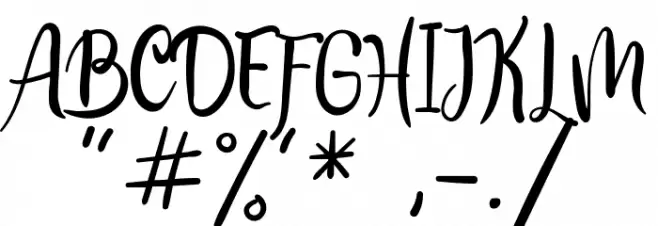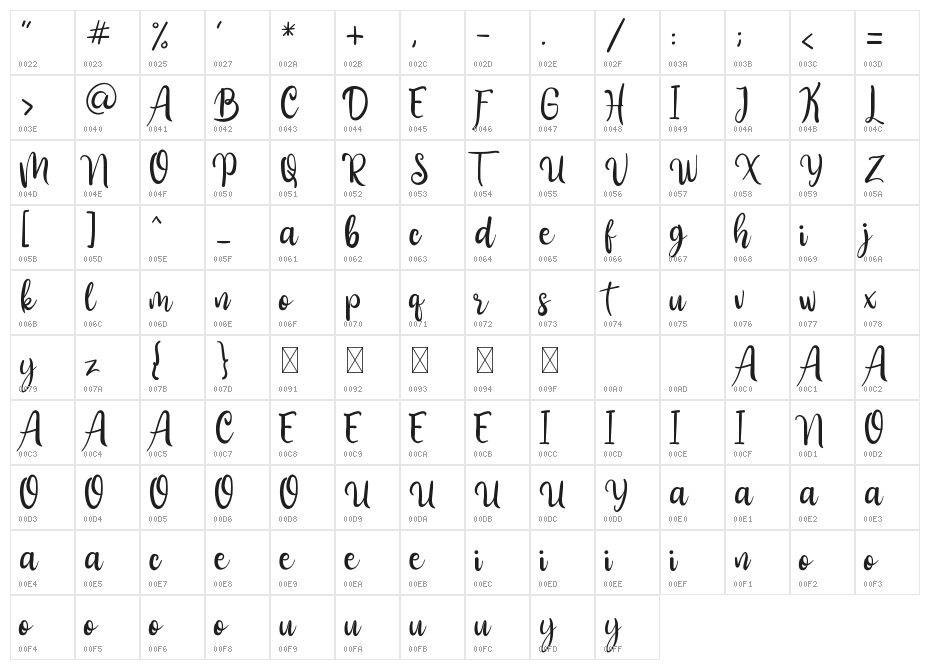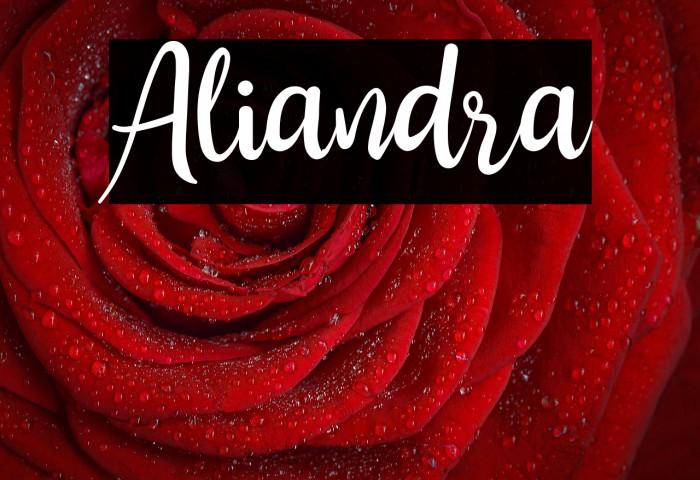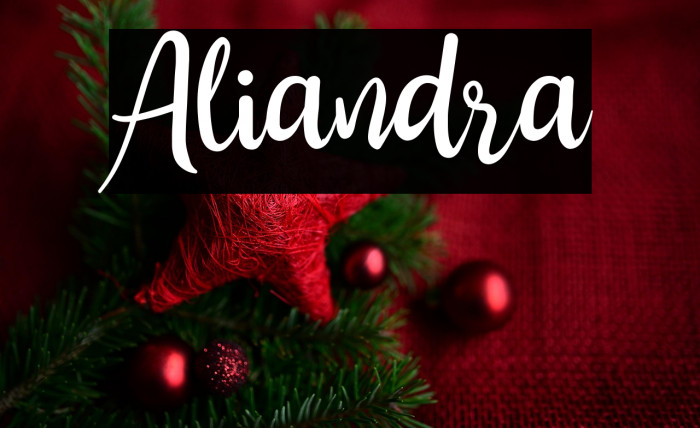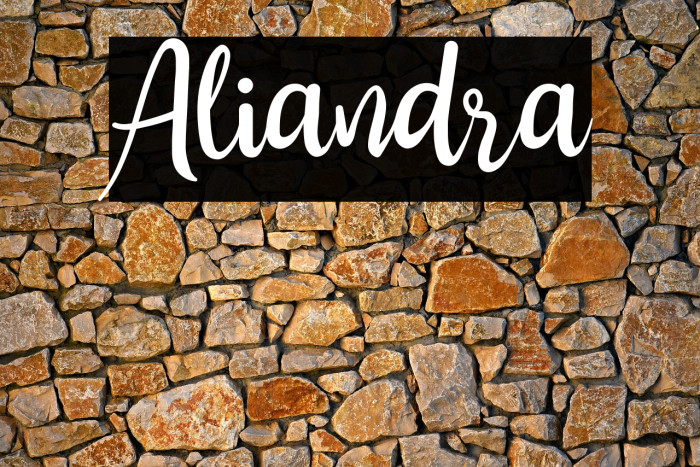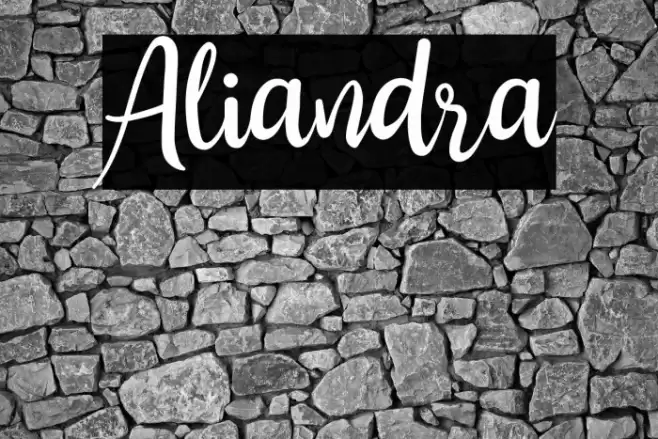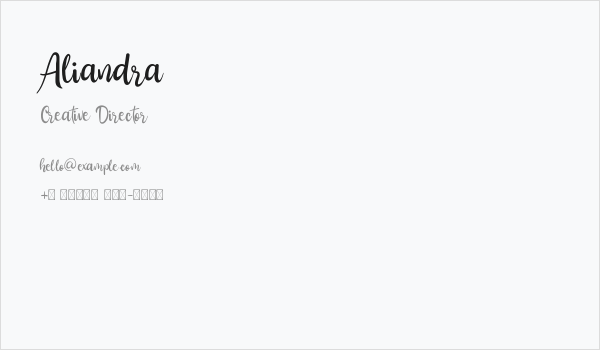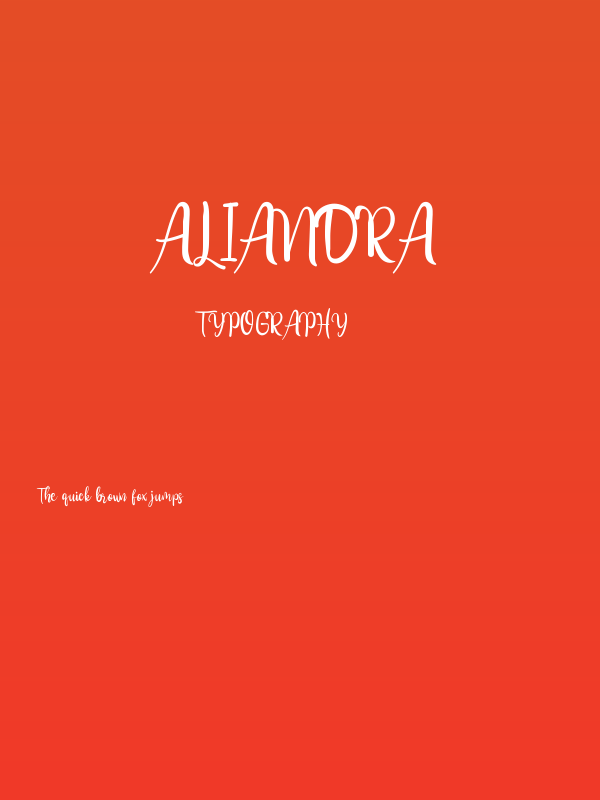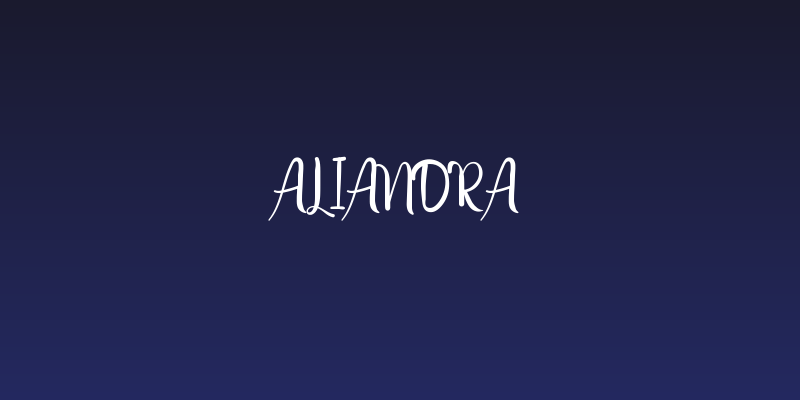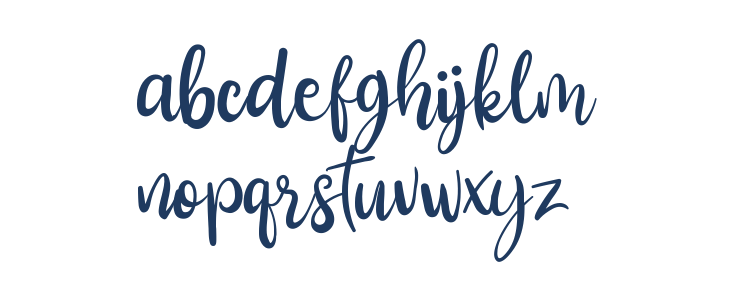
Aliandra Font
Aliandra Description
This font features a playful and whimsical script style, characterized by its flowing, hand-drawn appearance. The letters are connected with smooth, elegant curves, giving it a lively and dynamic feel. The uppercase letters are bold and prominent, while the lowercase letters maintain a consistent flow, enhancing readability. The font includes a full set of numerals and a variety of special characters, making it versatile for different design needs. Its unique style is perfect for adding a personal touch to any project, with a balance of boldness and elegance that stands out.
| Use Case | Logos, Invitations, Headlines |
| Proposed Projects | Ideal for wedding invitations, greeting cards, branding, and social media graphics. |